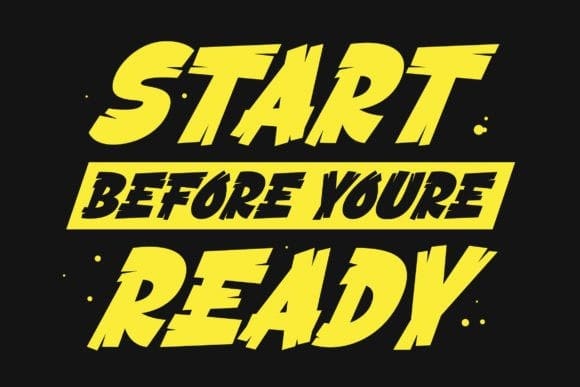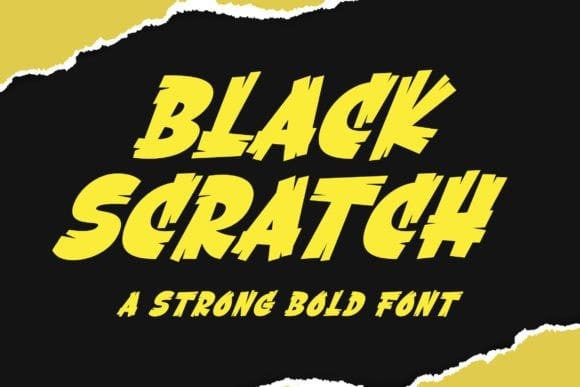
Black Scratch Font
Black Scratch Font, a robust and powerful typeface inspired by bold typography. This font adds an attractive and playful touch to designs, thanks to its high aesthetic appeal. It is an ideal choice for various applications, including book covers, posters, packaging, merchandise, logos, and more.